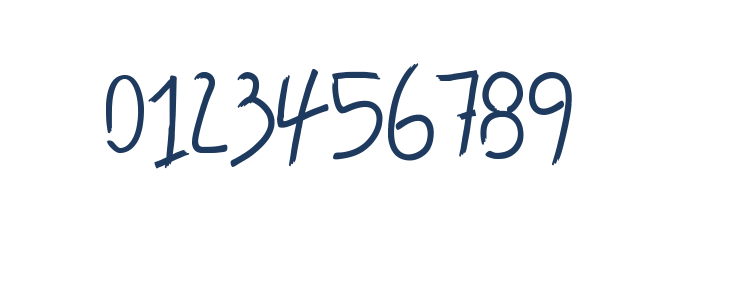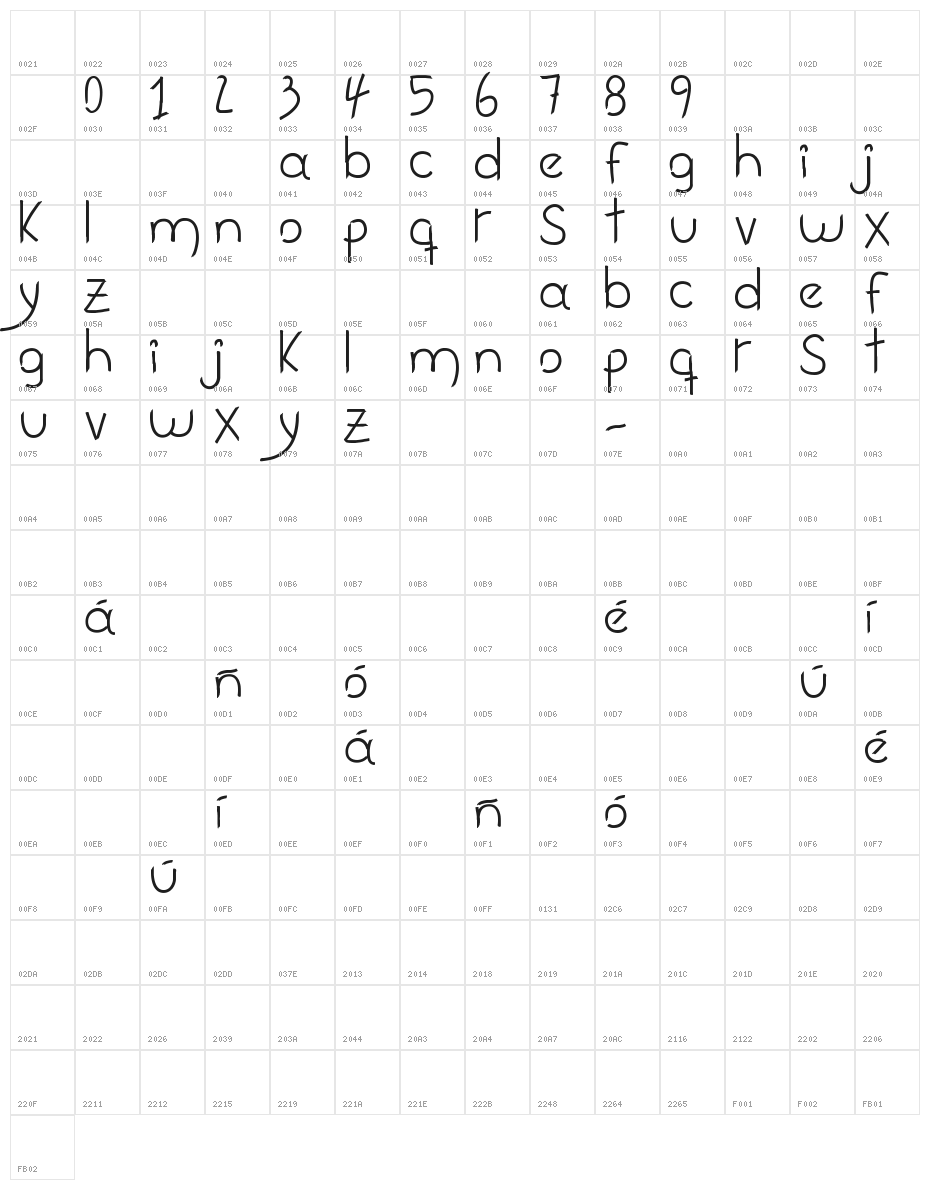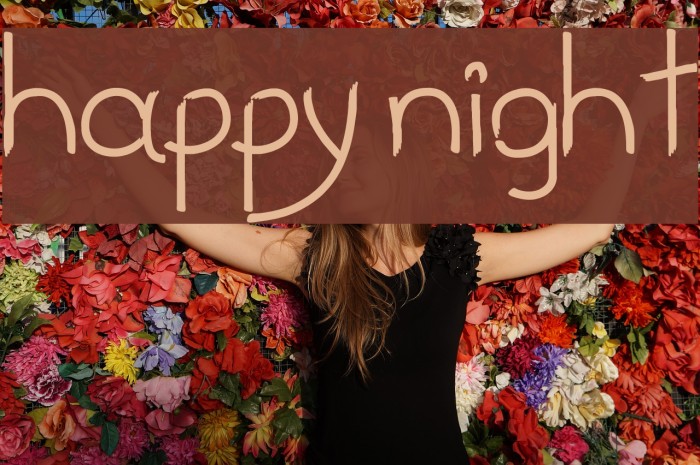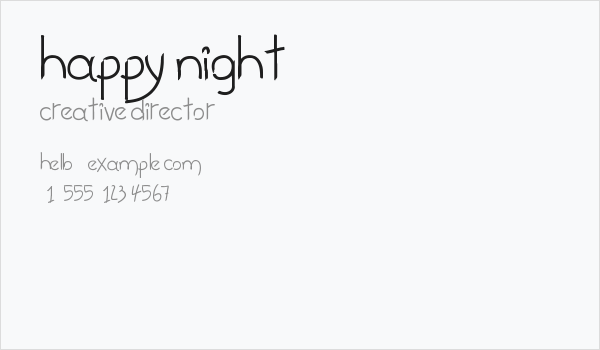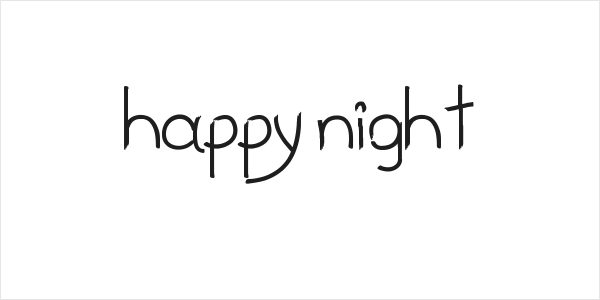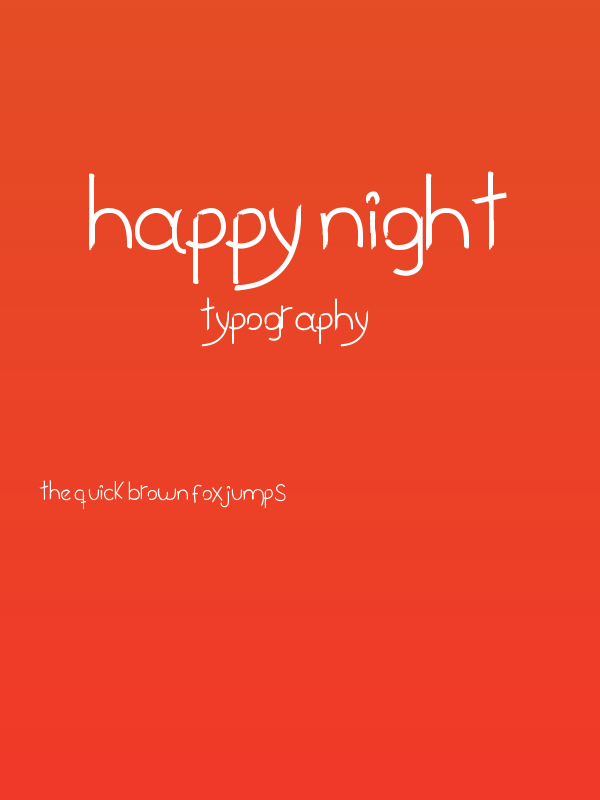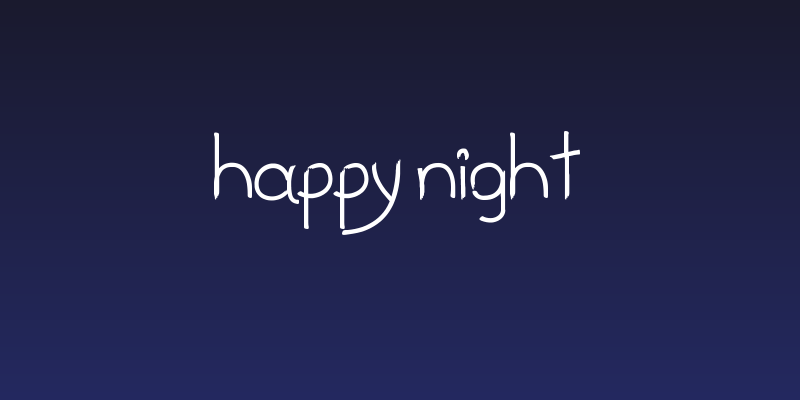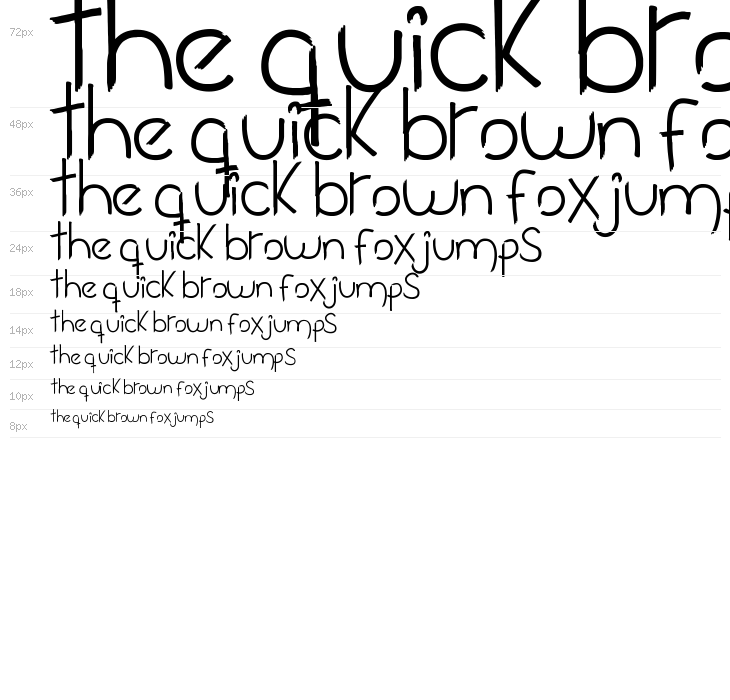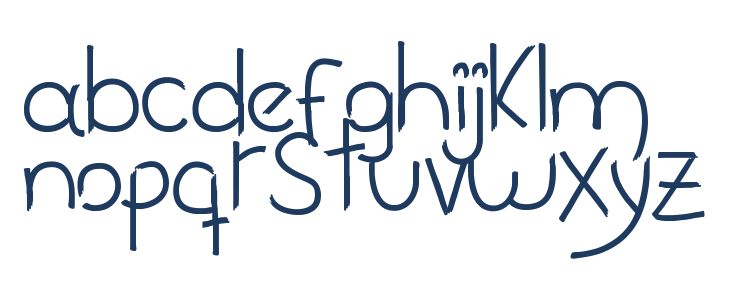
happy night Font
happy night Description
This playful and whimsical font features a handwritten style with a casual and friendly appearance. The characters are slightly irregular, adding a sense of spontaneity and charm. The strokes are smooth and rounded, giving it a soft and approachable feel. The font maintains a consistent line weight throughout, with moderate spacing between characters that enhances readability while preserving its informal aesthetic. The unique design of certain letters, such as the lowercase 'g' and 'y', adds a touch of creativity and individuality. This font is ideal for projects that require a personal and inviting touch.
| Use Case | Headlines, Logos, Informal text |
| Proposed Projects | Great for greeting cards, children's books, playful branding, and personal projects. |